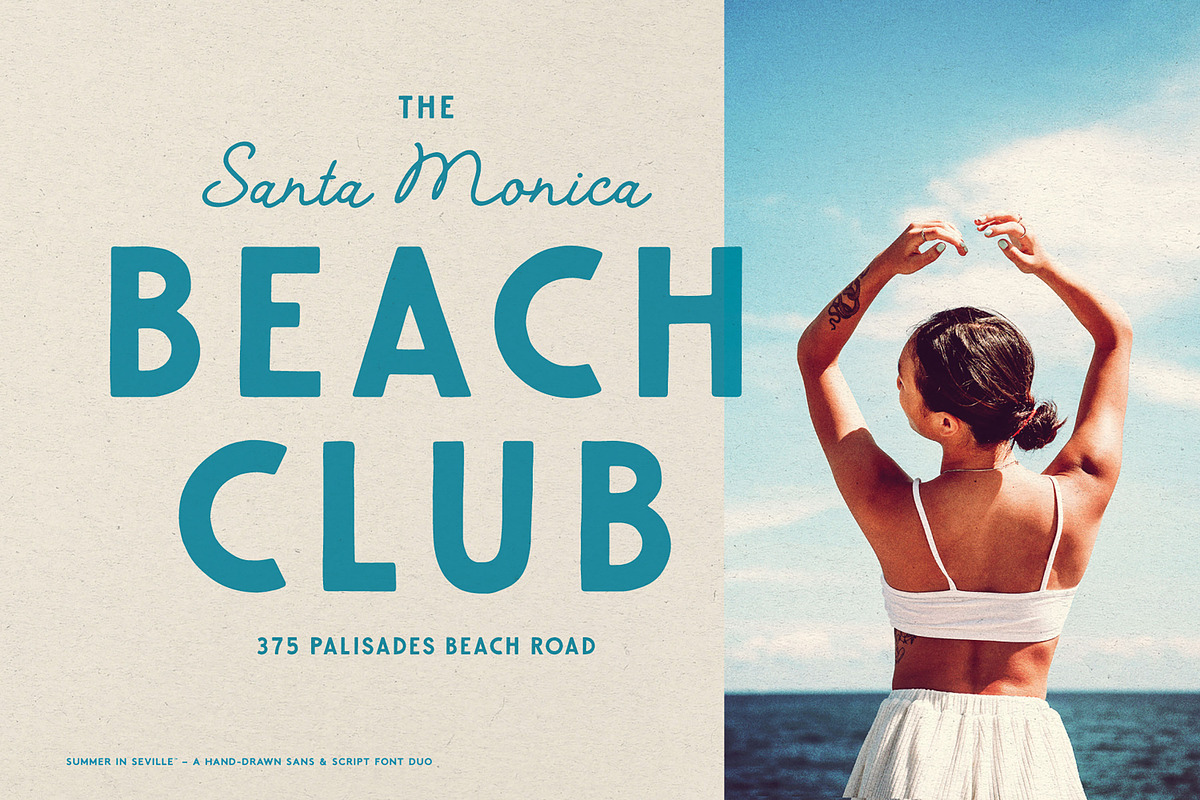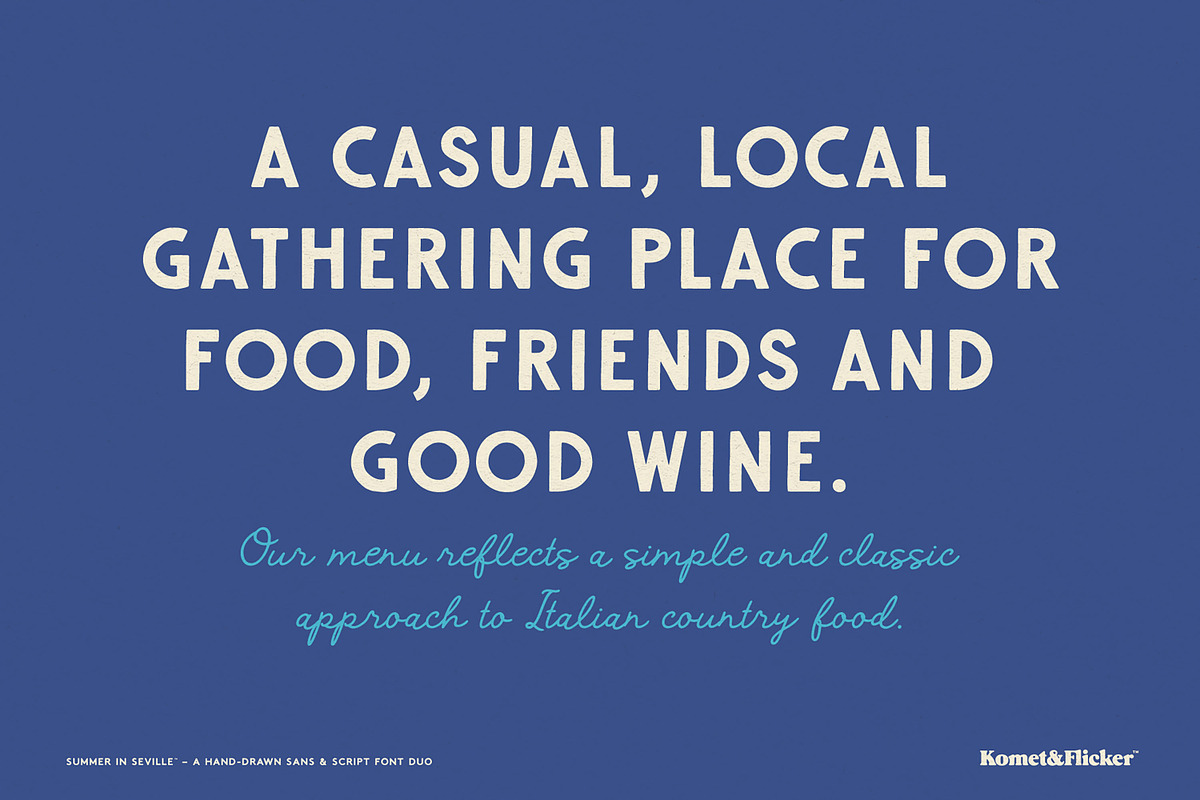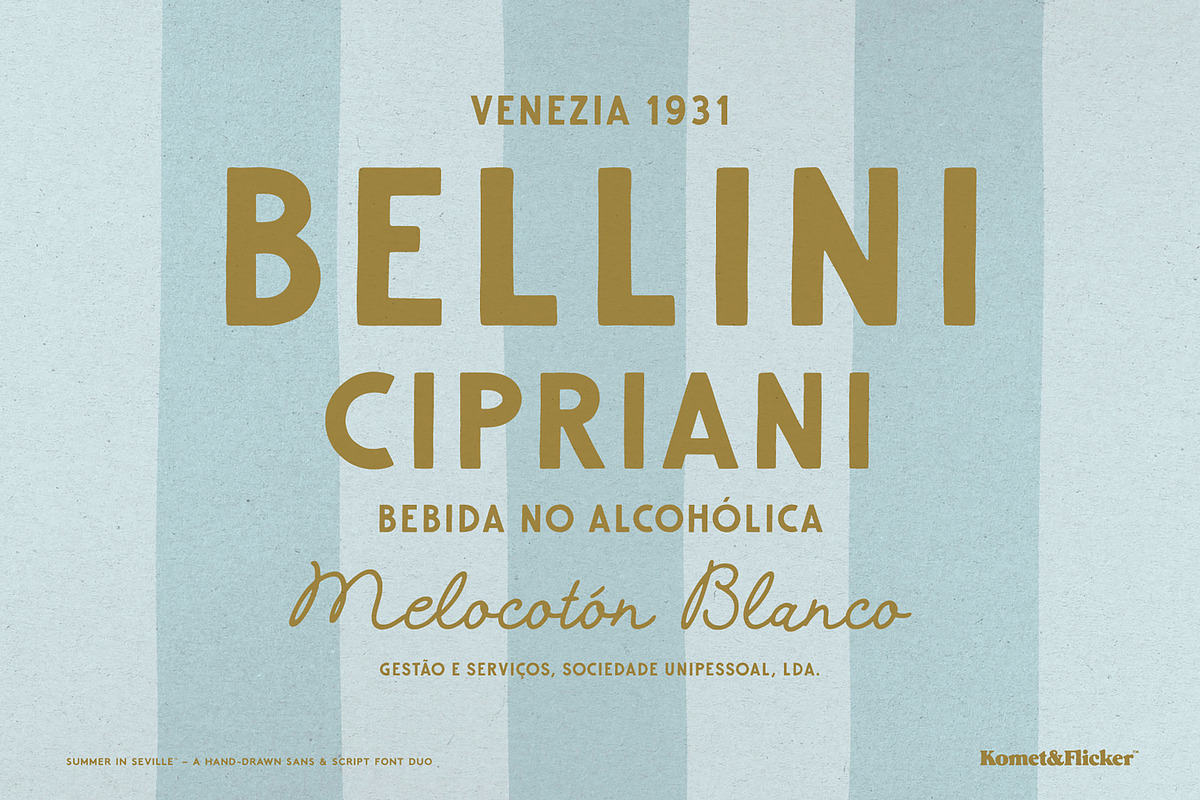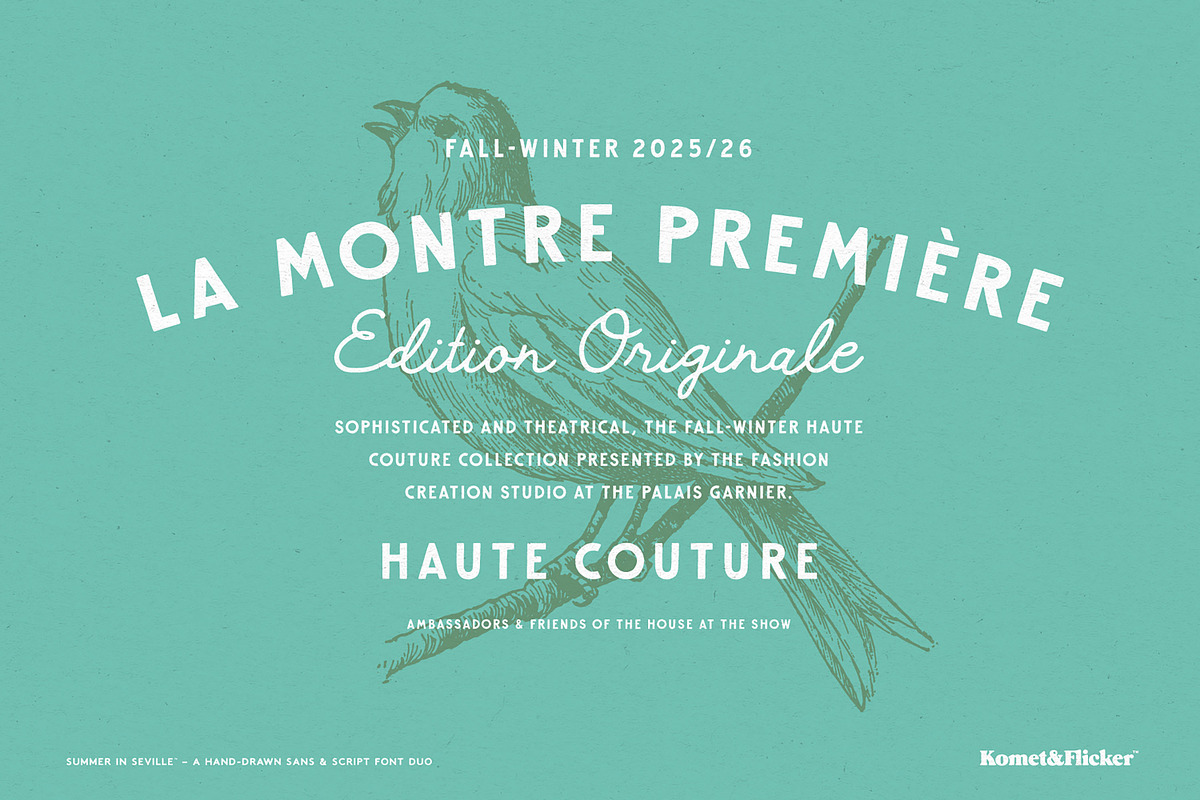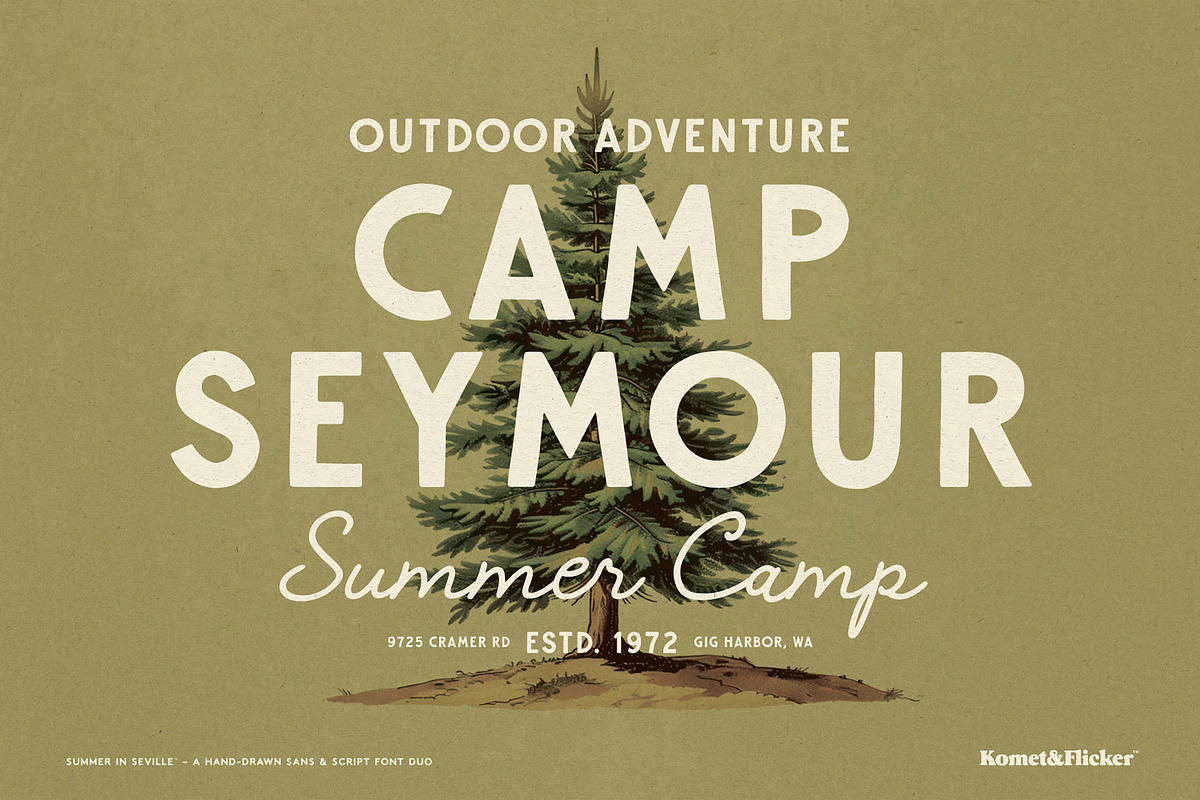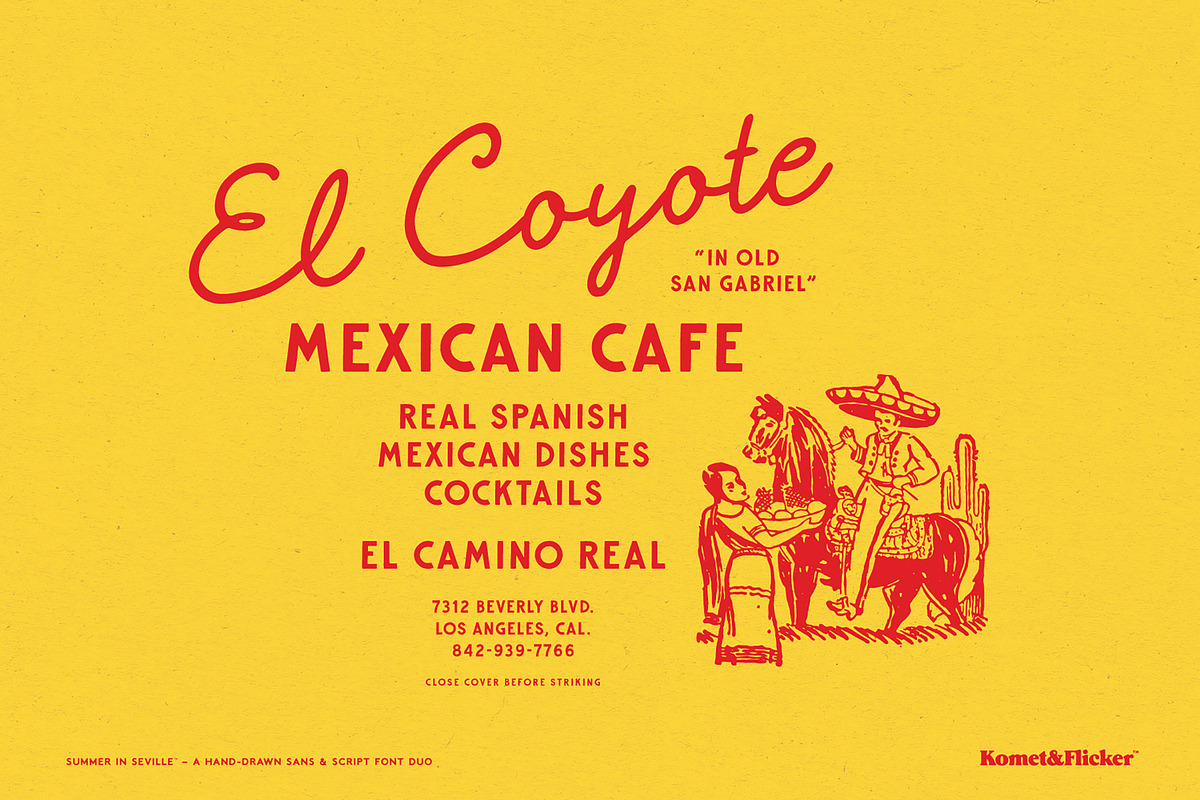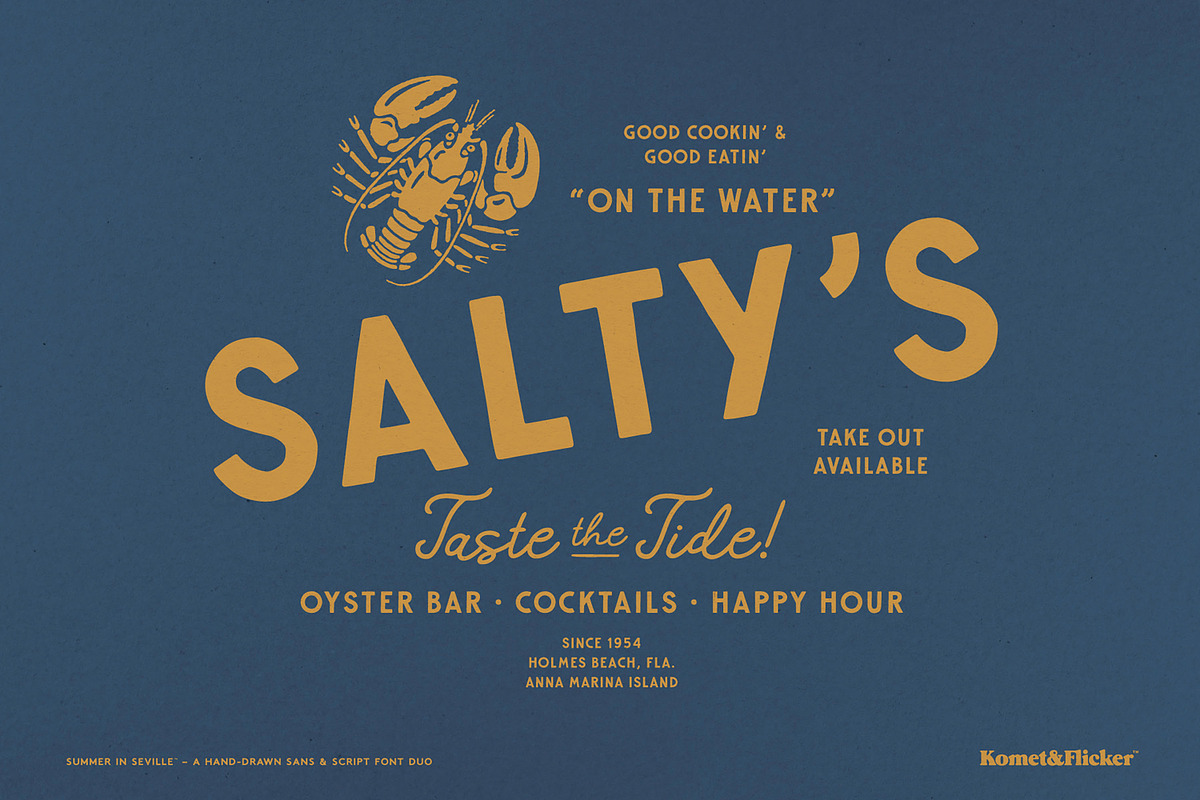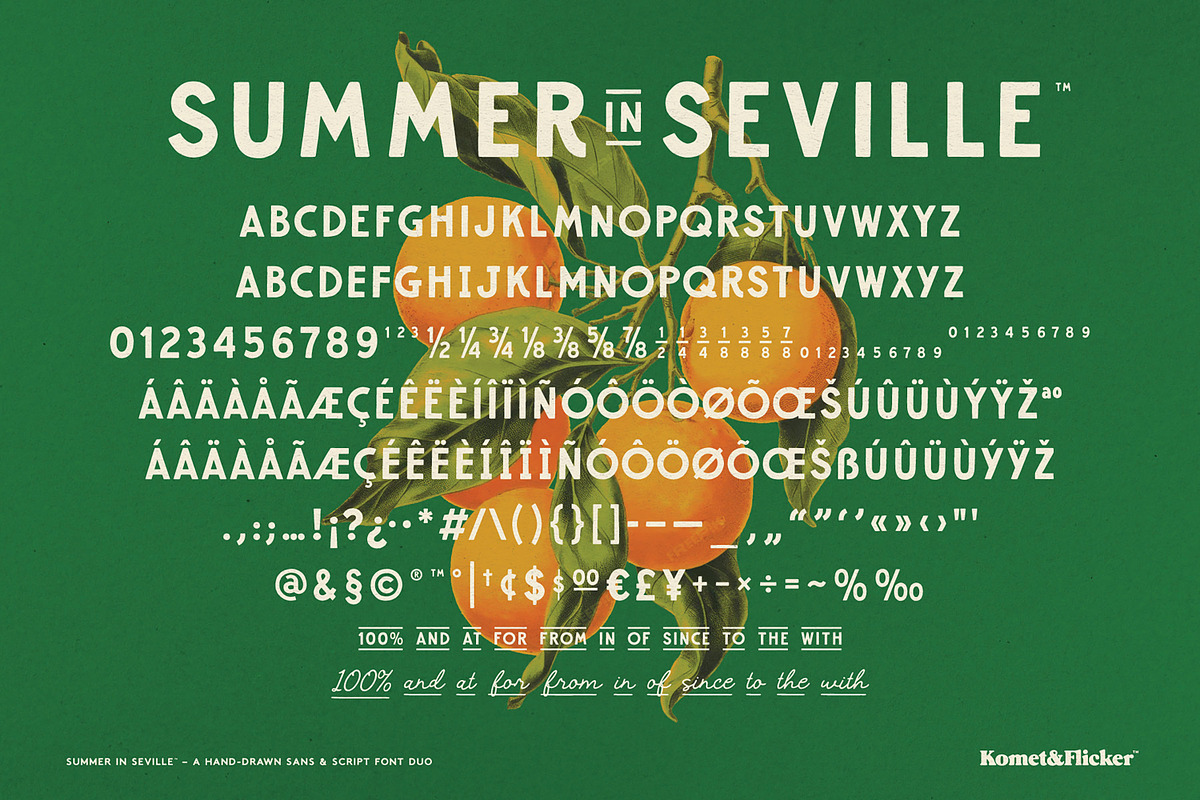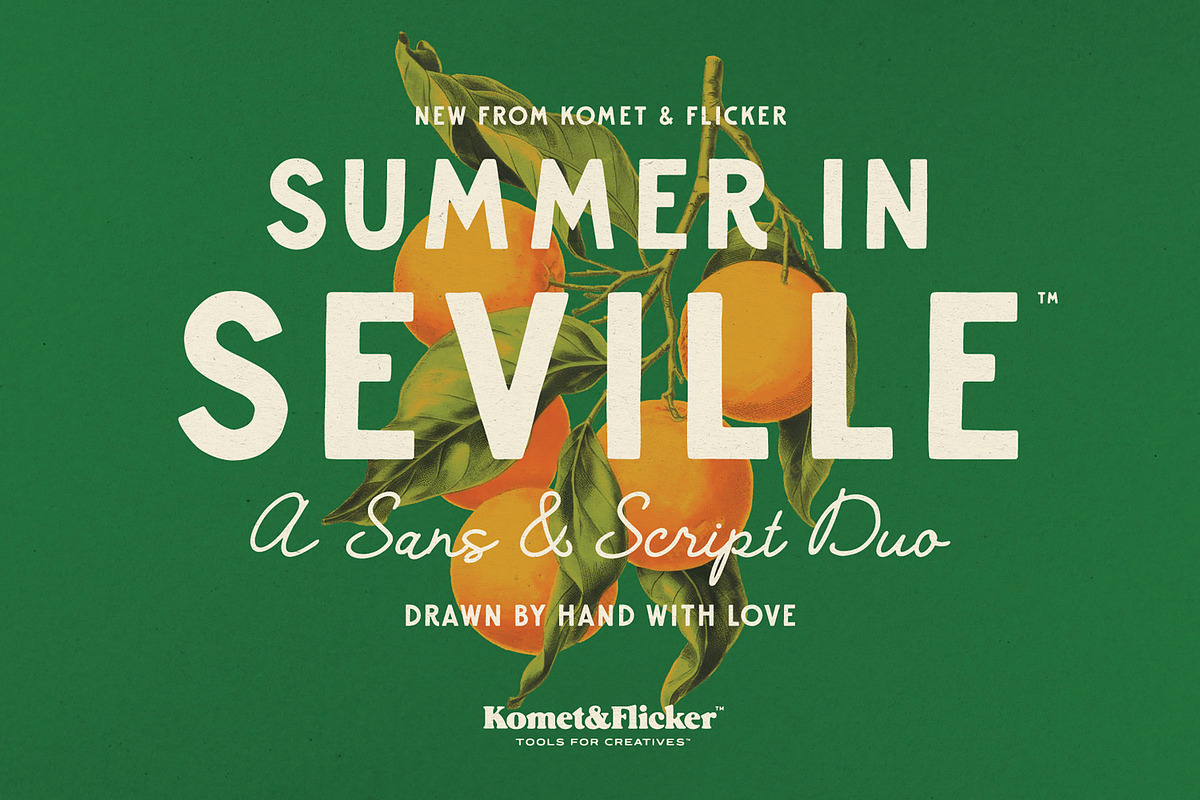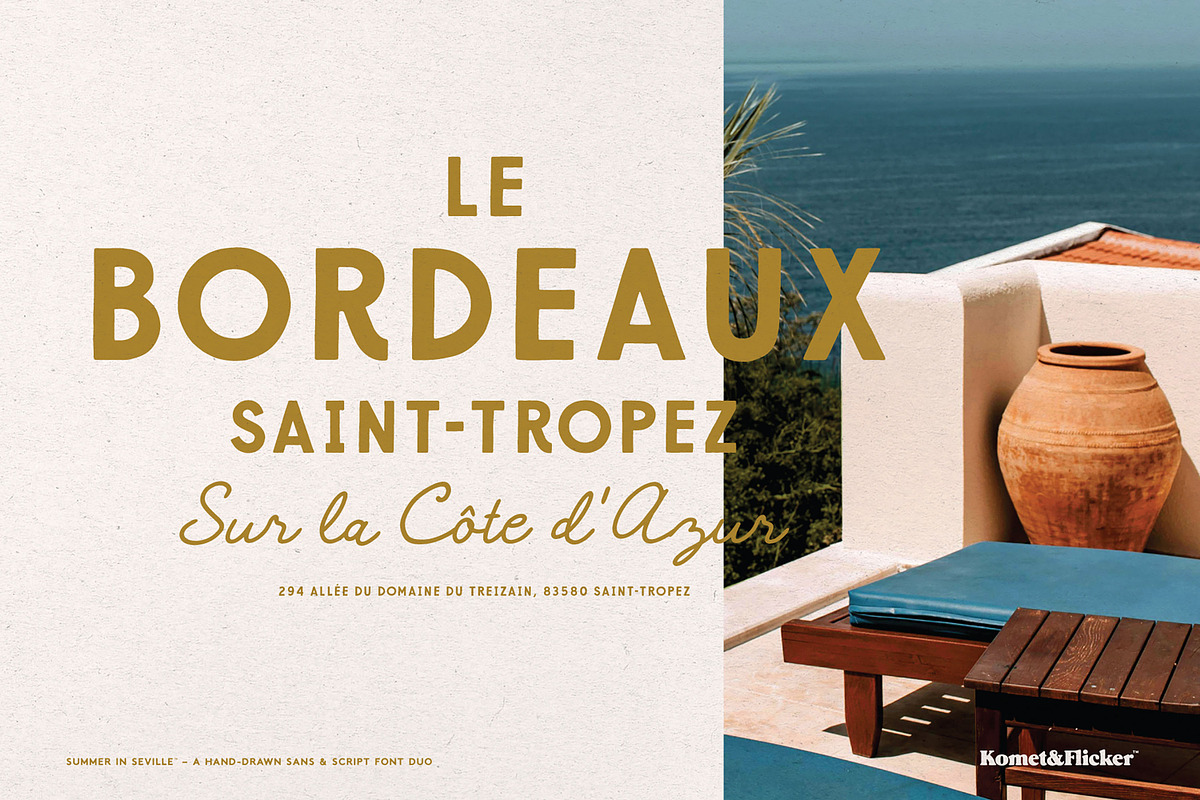
Summer in Seville
Bring sun-soaked warmth and vintage charm to your designs with Summer in Seville, a beautifully handcrafted font duo inspired by timeless European typography.
This font duo includes two complementary styles – a bold sans serif and a casual, free-flowing script – both lovingly drawn by hand to capture the spirit of old-world typography. Together, they strike the perfect balance between casual sophistication and nostalgic character.
Also included are 11 connecting word glyphs in two styles (sans and script) letting you effortlessly create seamless, expressive layouts – perfect for logos, packaging, travel posters, menus, and invitations that radiate warmth and authenticity.
With its retro European flair and handcrafted texture, Summer in Seville brings a touch of timeless artistry to every project.
THIS FONT INCLUDES
Full A-Z uppercase basic latin characters (for the sans)
Full A-Z uppercase and lowercase basic latin characters (for the script)
Select European specific characters
Numbers, punctuation, and select symbols
10 alternate characters (for the sans)
Two styles of pre-made common fractions (one style for the script)
Set of 11 custom connecting word glyphs in both sans and script